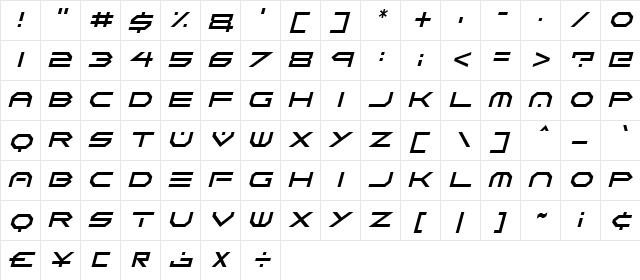
Neon Vortex Italic
| Designer | Darrell Flood |
Design Context for Neon Vortex Typeface
Neon Vortex channels digital-age aesthetics through its sharp, structured letterforms — ideal for brands that want to signal innovation. The dynamic lean of this cut emphasises speed and emphasis in any layout.
Pro Tip: Use Neon Vortex in combination with a neutral sans for body text. Let it define the brand voice in headlines while keeping reading comfortable elsewhere.